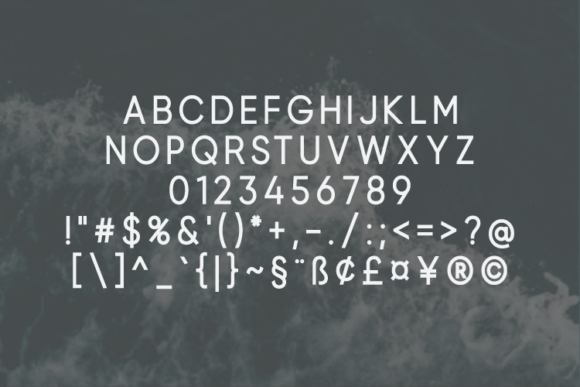
Introducing Beone Extra Bold: The Ultimate Modern Sans Serif Font for Your Design Needs
Are you on the hunt for a font that embodies the essence of modern minimalism and sophistication? Look no further than Beone Extra Bold, a stunning sans serif font that’s taking the design world by storm. Inspired by the latest trends in minimal branding, natural cosmetic packaging design, and creamy neutral shades, Beone Extra Bold is the perfect addition to your typography arsenal.
The Inspiration Behind Beone Extra Bold
Beone Extra Bold draws its inspiration from the world of modern branding and design. With a keen eye on the latest trends, the creators of Beone Extra Bold have crafted a font that’s both contemporary and timeless. The result is a font that exudes confidence, elegance, and a deep understanding of what makes a brand stand out in a crowded market.
From the clean lines and simple shapes of minimal branding to the organic feel of natural cosmetic packaging design, Beone Extra Bold seamlessly blends these influences to create a truly unique typographic experience. Whether you’re working on a logo, a website, or a marketing campaign, Beone Extra Bold is the perfect choice for designers and crafters looking to elevate their work.
The Characteristics of Beone Extra Bold
So, what sets Beone Extra Bold apart from other fonts on the market? Here are just a few of its key characteristics:
- Modern sans serif design: Beone Extra Bold boasts a sleek, modern design that’s perfect for creating a professional and polished look.
- Trendy minimalism: With its clean lines and simple shapes, Beone Extra Bold embodies the essence of modern minimalism.
- Inspired by natural cosmetic packaging design: The font’s organic feel and rounded edges evoke the natural, effortless look of cosmetic packaging design.
- Creamy neutral shades: Beone Extra Bold is designed to work seamlessly with a range of creamy neutral shades, making it perfect for designers who love working with soft, muted colors.
Why Choose Beone Extra Bold?
With so many fonts on the market, why choose Beone Extra Bold? Here are just a few compelling reasons:
- Versatility: Beone Extra Bold is an incredibly versatile font that works beautifully across a range of design applications, from logos and branding to websites and marketing campaigns.
- Professional look: With Beone Extra Bold, you can give your designs a professional and polished look that’s sure to impress.
- Easy to read: The font’s clean lines and simple shapes make it easy to read, even at smaller sizes.
- Unique and memorable: Beone Extra Bold is a truly unique font that’s sure to help your brand stand out in a crowded market.
Get Ready to Elevate Your Designs with Beone Extra Bold
Ready to take your designs to the next level with Beone Extra Bold? With its modern sans serif design, trendy minimalism, and versatility, this font is the perfect addition to your typography arsenal.